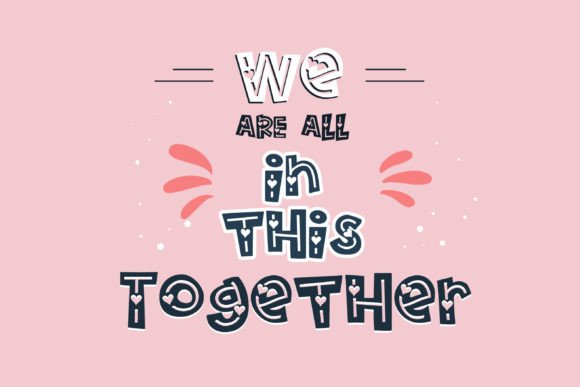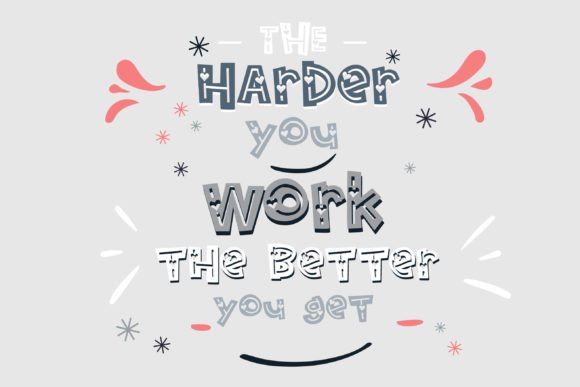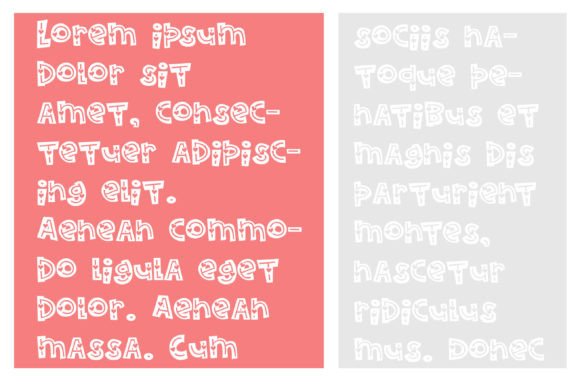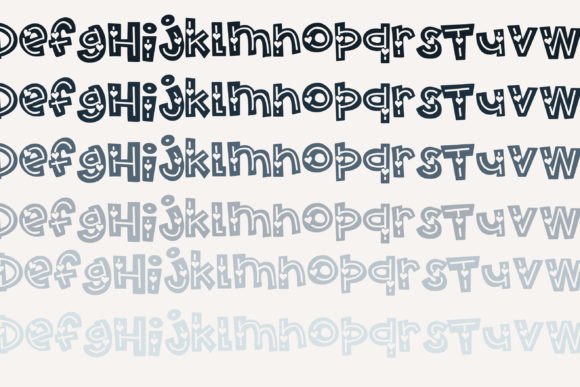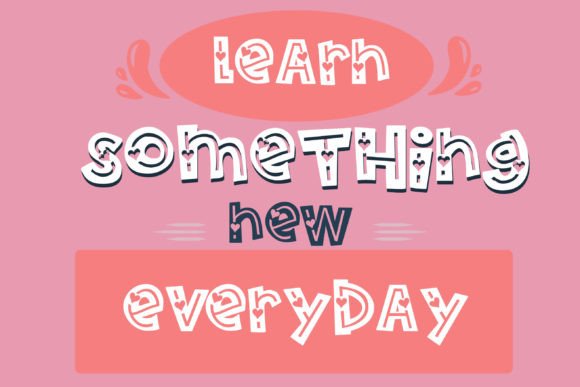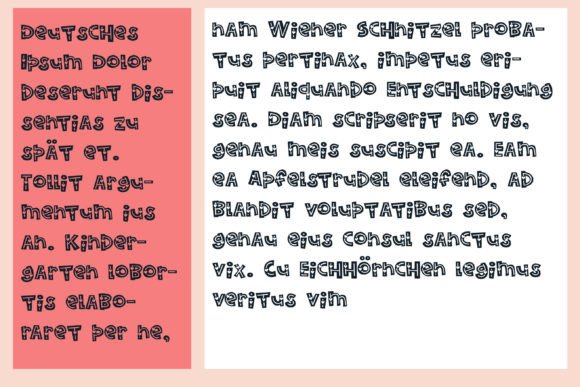
Introduction to Love Hatch Font
As a designer, there’s nothing quite like that moment of creative spark – the instant when an idea strikes and you know you have to bring it to life. For me, it was while browsing through a vintage market, surrounded by quirky trinkets and charming decorations. That’s when I stumbled upon a retro Valentine’s Day card, adorned with a beautiful, hand-drawn font. It was the Love Hatch Font, and I knew I had to have it.
As I delved deeper into the world of design resources, I realized that the Love Hatch Font was a hidden gem, waiting to be discovered. With its unique inline and heart motifs, it adds a special touch to any design project. Whether you’re creating Valentine’s Day decor or designing a t-shirt, this font is sure to bring a smile to your face.
As a valuable resource for designers, the Love Hatch Font offers a high-quality, free download with a transparent background, making it perfect for any creative project. With its charming, retro vibe, it’s an ideal addition to your design arsenal. In this article, we’ll explore the world of the Love Hatch Font and show you how to make the most of this special design resource.
- Includes a range of characters, including uppercase and lowercase letters, numbers, and special characters.
- Designed with a unique, hand-drawn aesthetic, making it ideal for projects requiring a personal touch.
Honest Review: Love Hatch Font
I recently stumbled upon the Love Hatch Font and was excited to dive in and explore its features. As a designer, I’m always on the lookout for high-quality design resources that can elevate my creative projects.
The Love Hatch Font offers a transparent background, which makes it super easy to use as a standalone element or layer it over other design elements. The font itself is beautifully crafted, with a unique and quirky feel that’s perfect for adding a touch of personality to your designs.
- Unique and quirky feel that adds personality to designs
- Not suitable for formal or professional designs due to its quirky feel
Overall, I’m really impressed with the Love Hatch Font. It’s a great addition to any designer’s toolkit and can add a fun and creative touch to a variety of projects. Just be sure to use it wisely and in the right context.